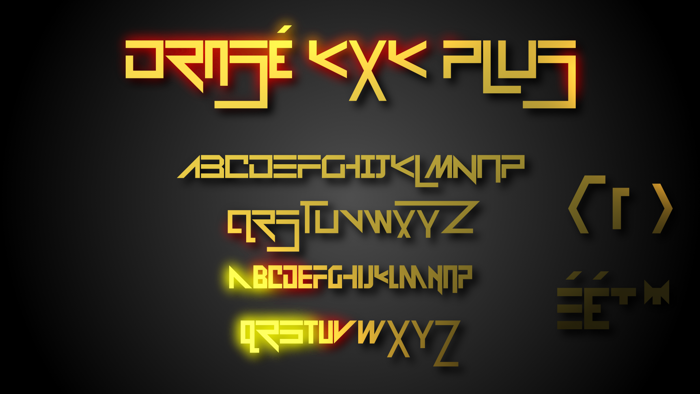
Drosé KXK Plus Font
Drosé KXK Plus Regular
This font was made by XoSKANI ( xoskshop.com )
Has a 'Graffiti' Texture.
We called it 'Graffitti' on purpose.
The name of the font is:
Drosé KXK Plus
-not-
Drosé Graffitti X-K Plus